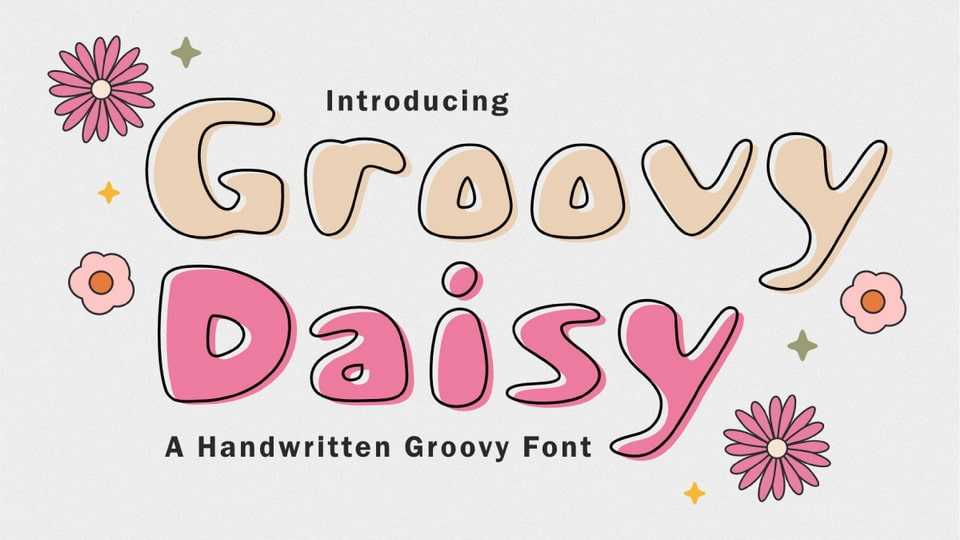
Download Groovy Daisy font, a super fun and playful retro-styled font. Really fun typeface for any vintage theme concept, Illustration posters, stickers, fun graphics, retro, logos, quotes, invitations, blog posts, and more.